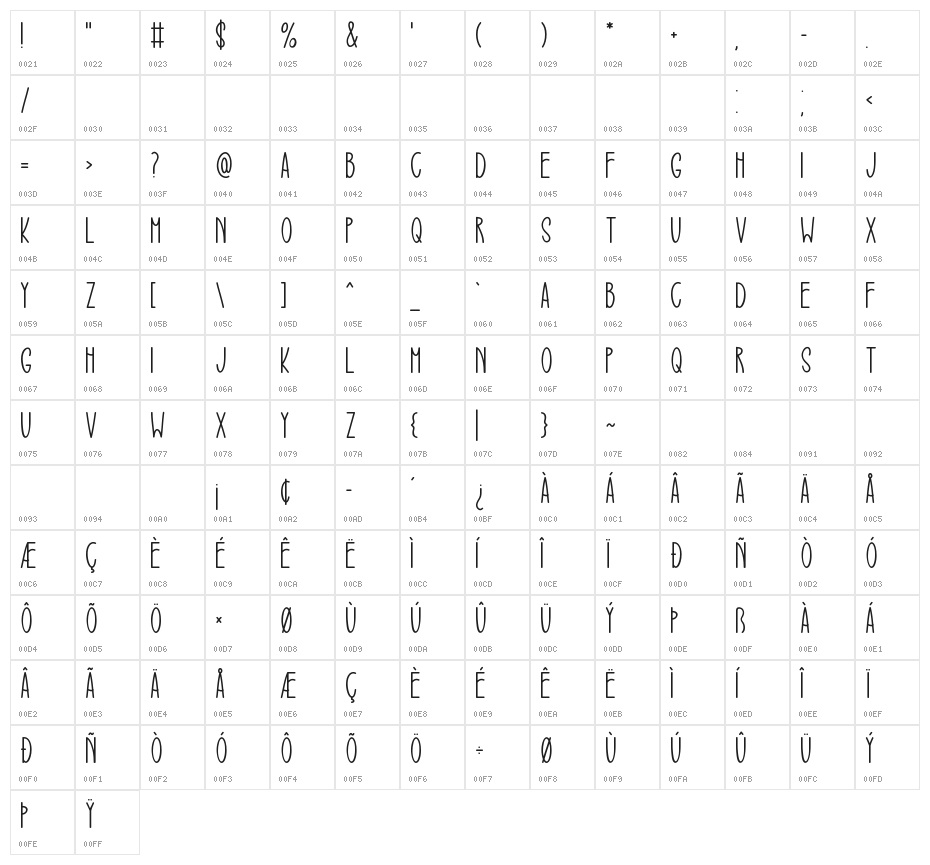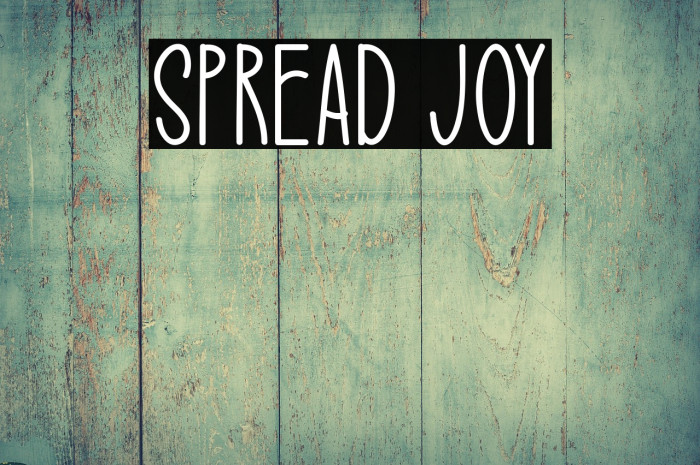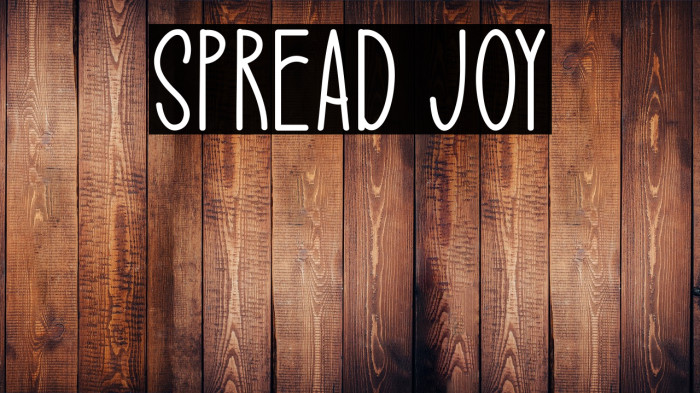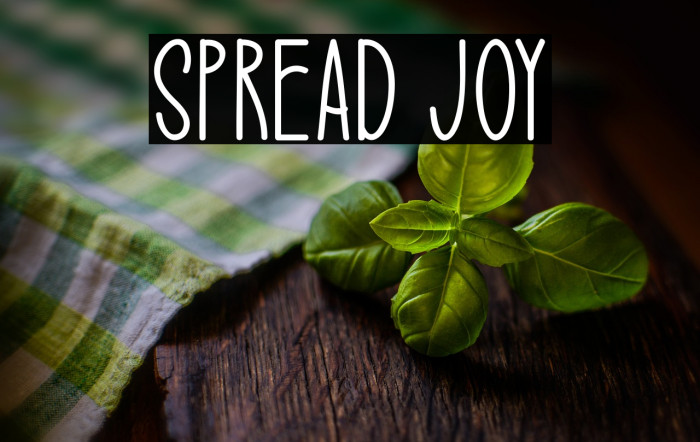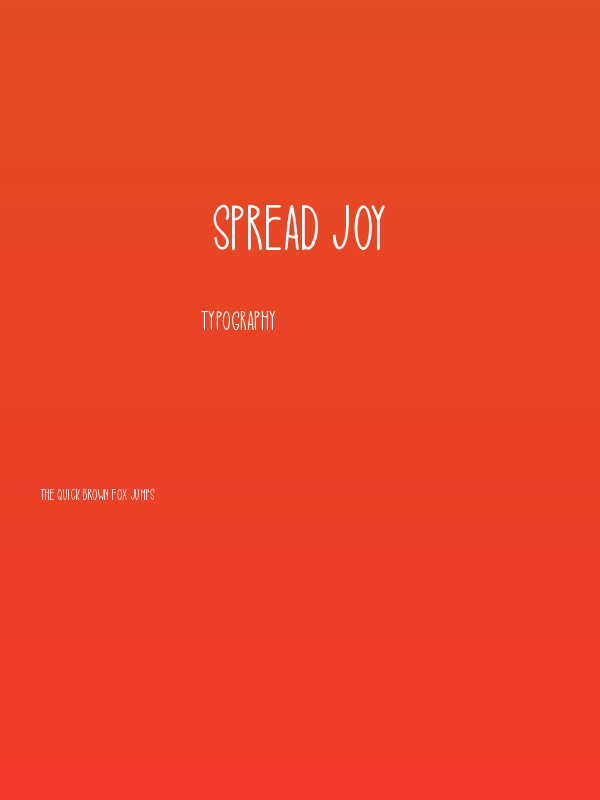
Spread Joy Font
Spread Joy Description
This font features a playful and whimsical style with tall, narrow letters that have a hand-drawn appearance. The characters are slightly irregular, adding to the casual and friendly feel. The uppercase and lowercase letters maintain a consistent height, creating a uniform look. The strokes are smooth and rounded, giving the font a soft and approachable vibe. The spacing between characters is moderate, ensuring readability while maintaining the font's unique charm. This font is perfect for projects that require a touch of fun and creativity.